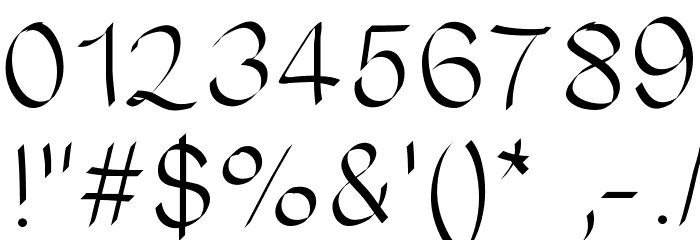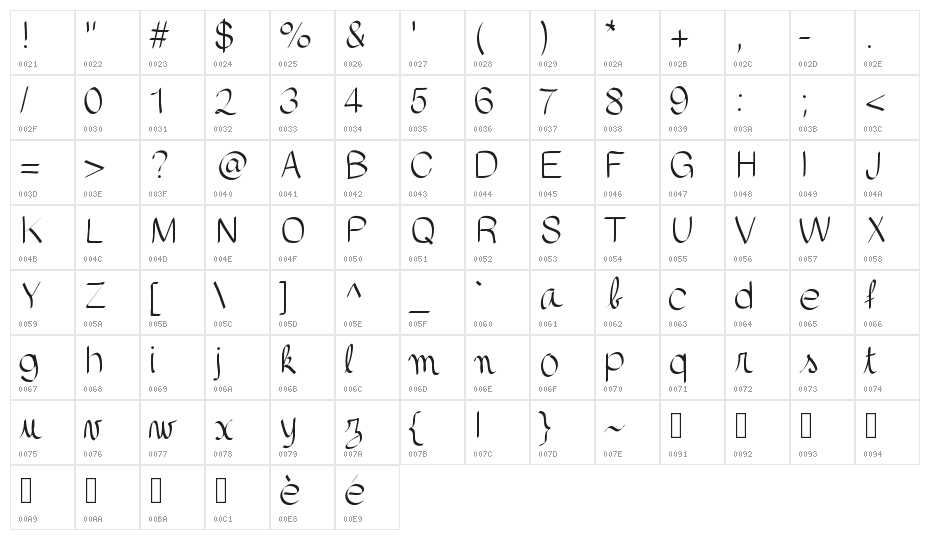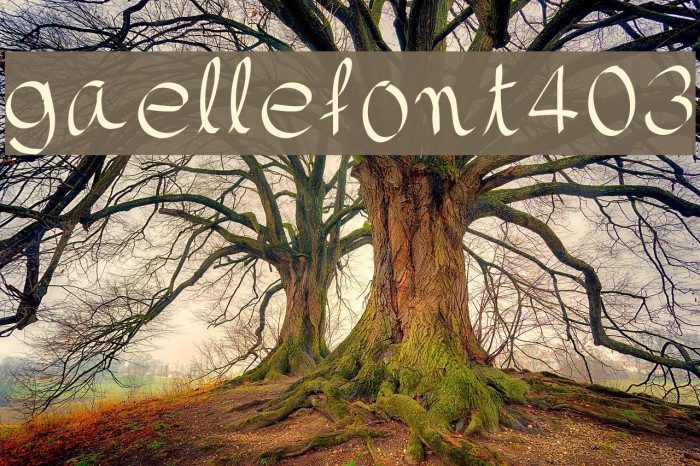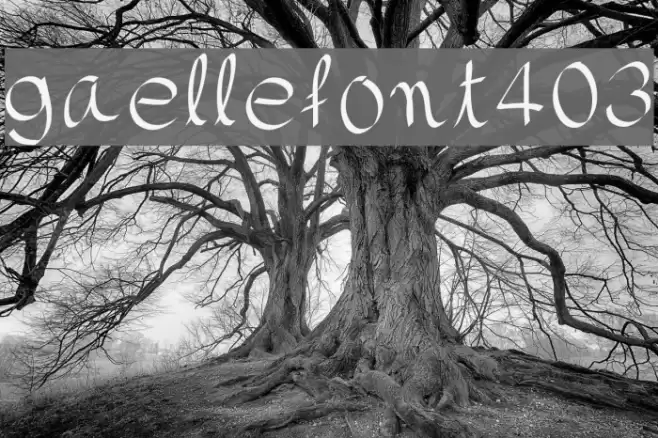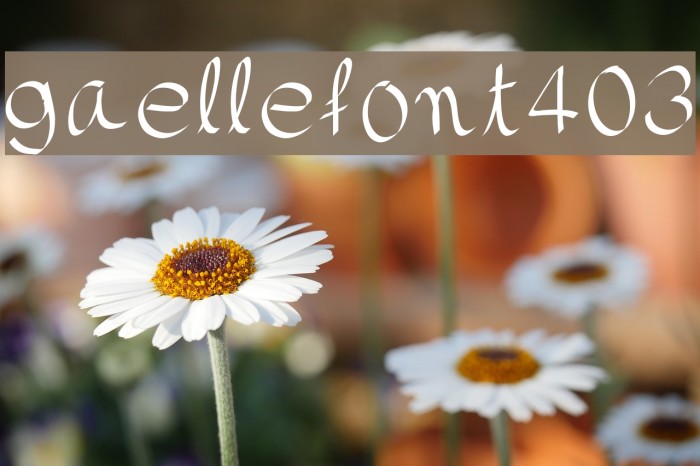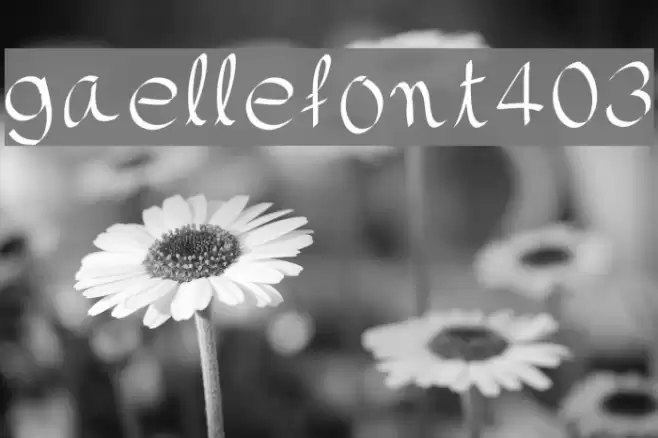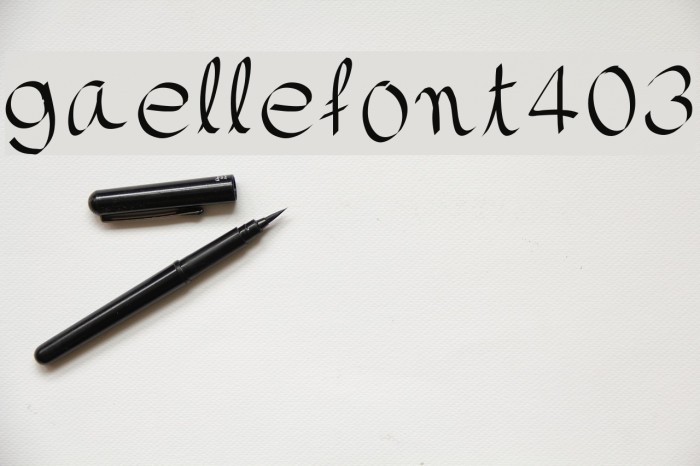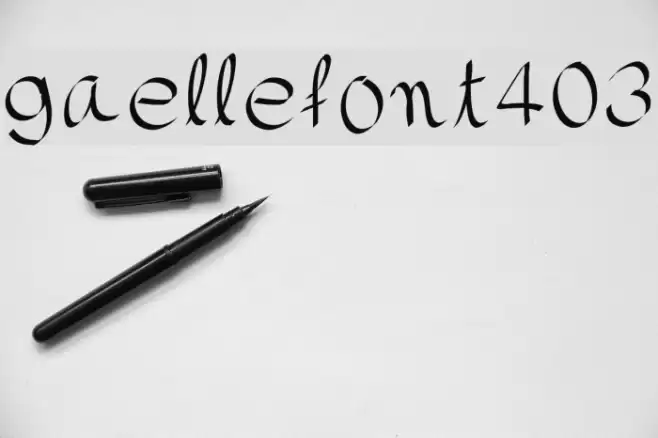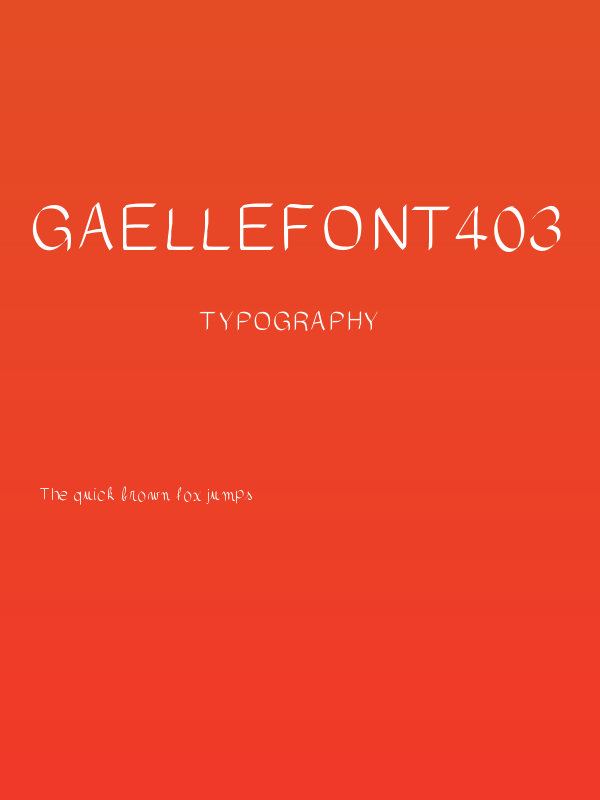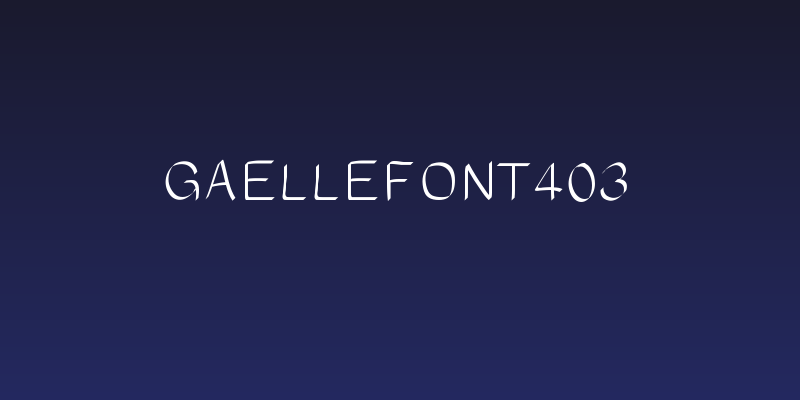
gaellefont403 Font
gaellefont403 Description
This font exhibits a unique blend of elegance and playfulness, characterized by its flowing, cursive-like strokes that give it a handwritten appearance. The uppercase letters are bold and slightly angular, adding a modern twist to the classic script style. The lowercase letters maintain a consistent flow, with smooth curves and a slight slant, enhancing readability while retaining a personal touch. Numbers and special characters are crafted with the same attention to detail, ensuring a cohesive look across all elements. The font's overall design is both artistic and functional, making it suitable for a variety of creative applications.